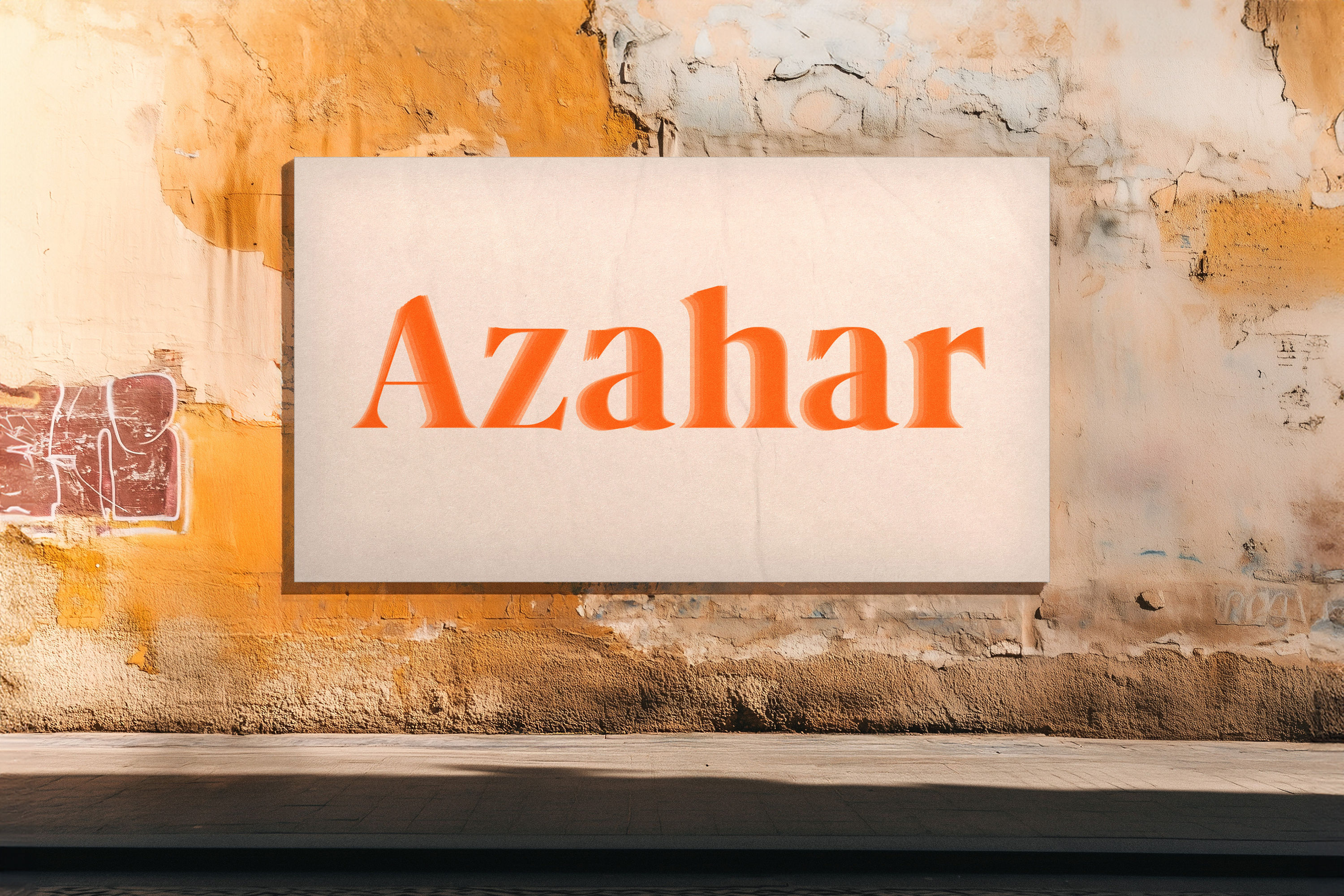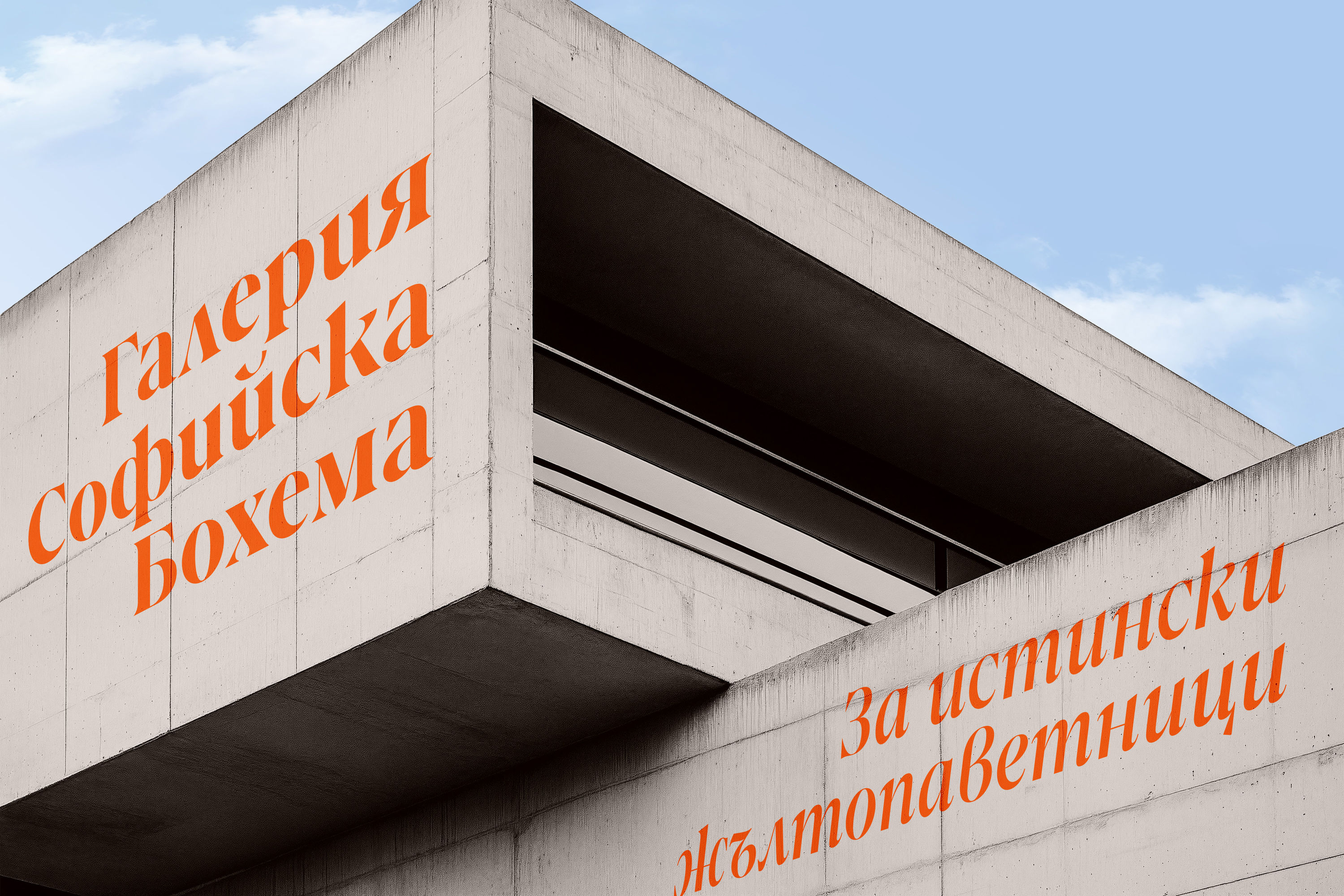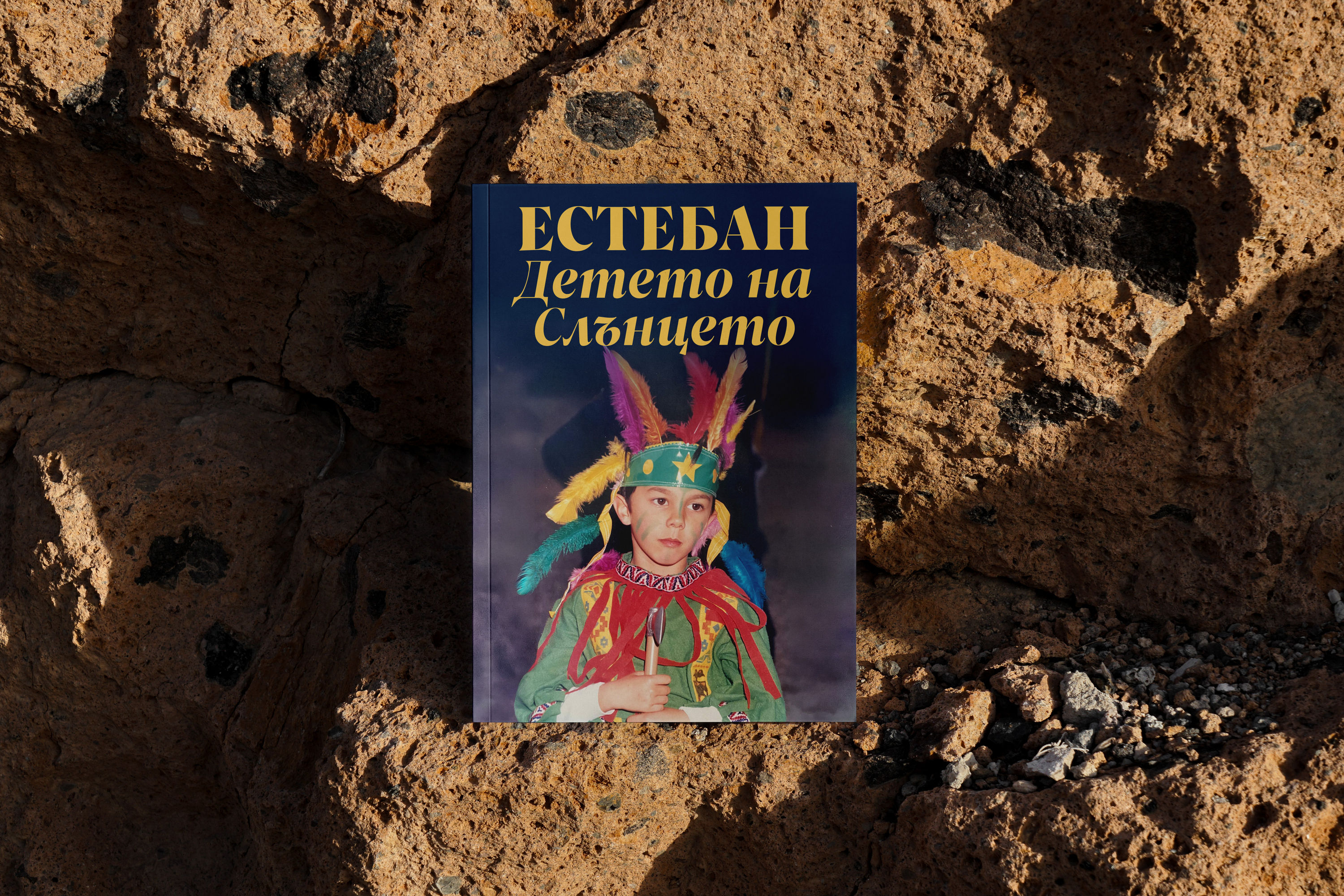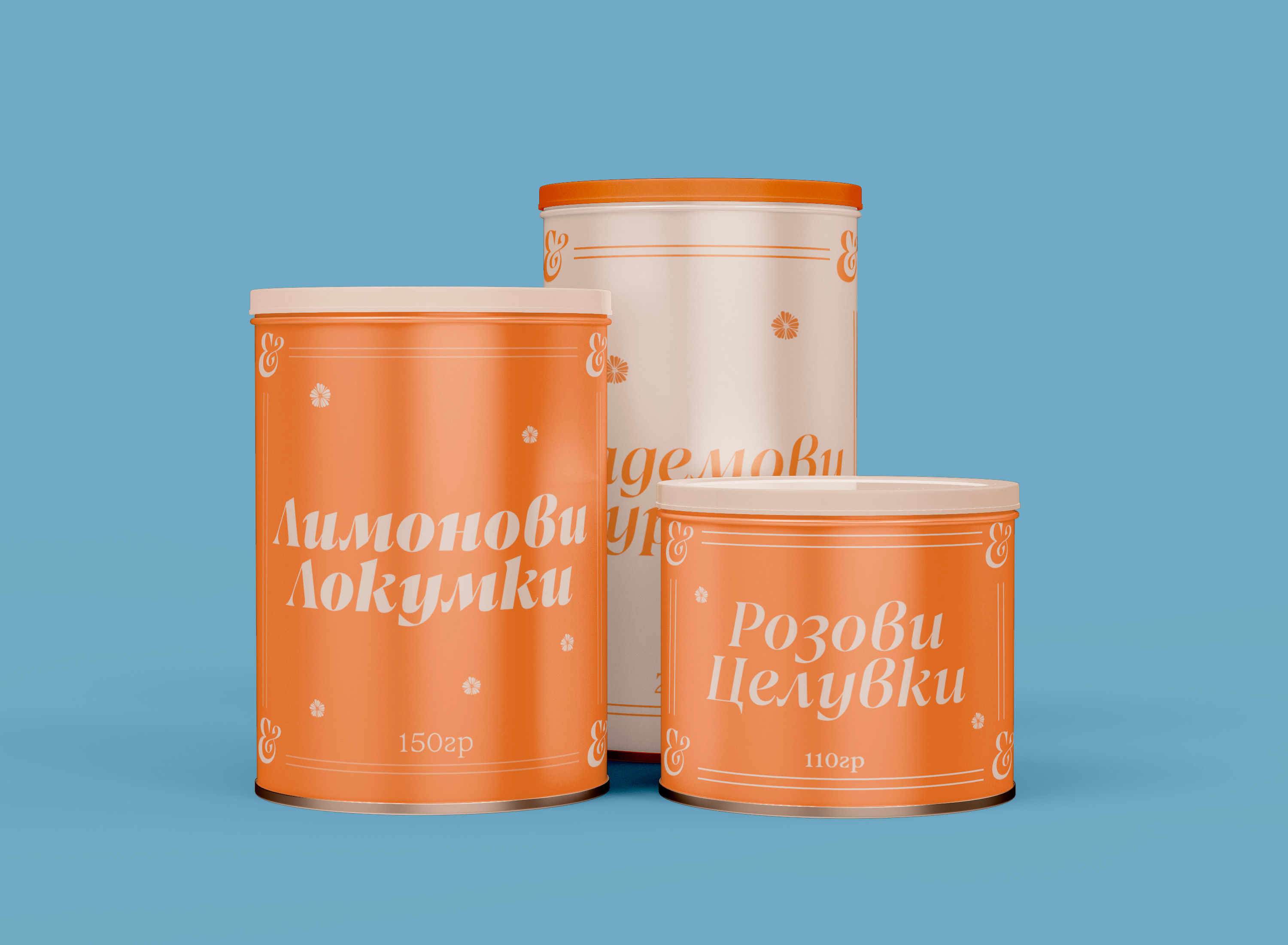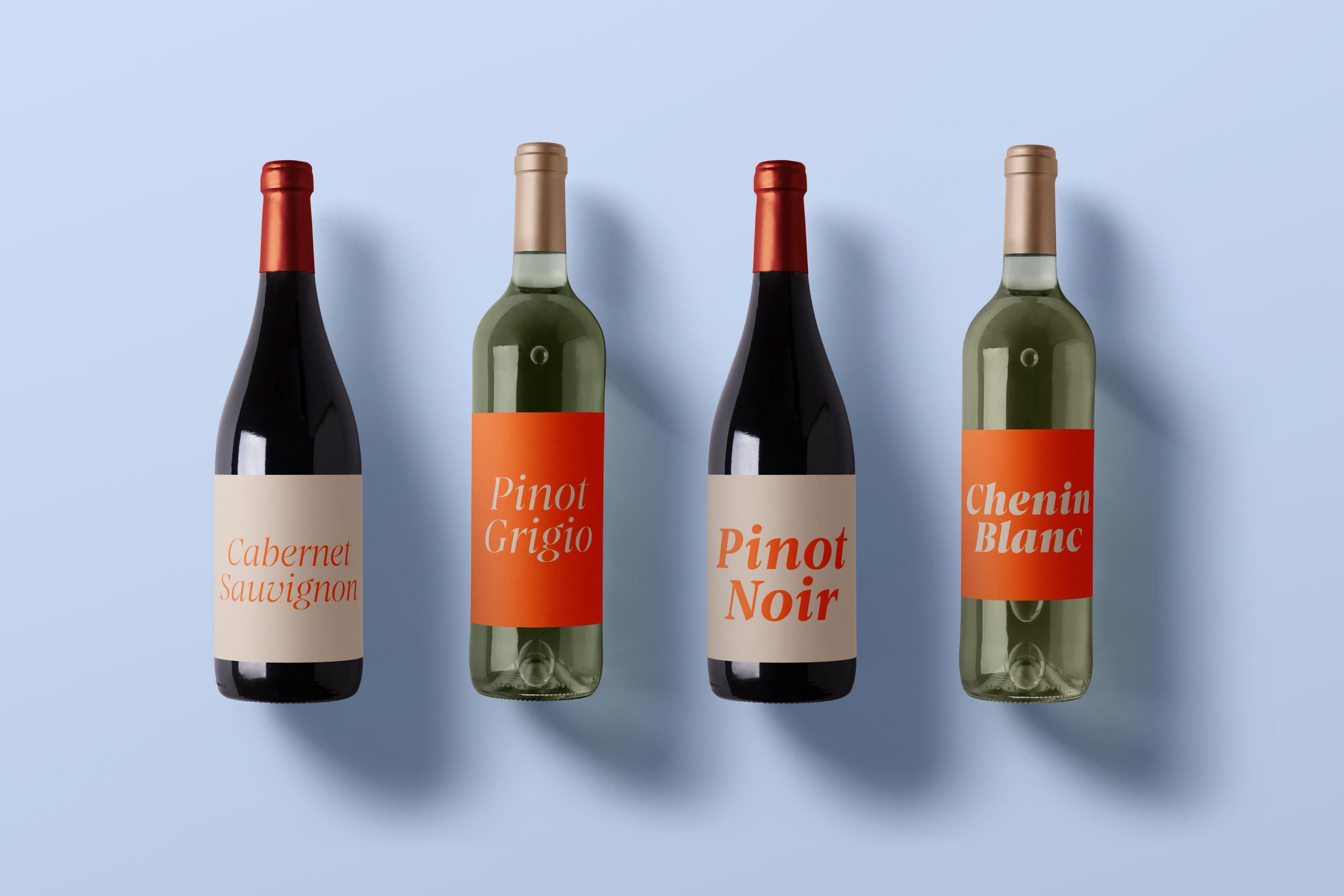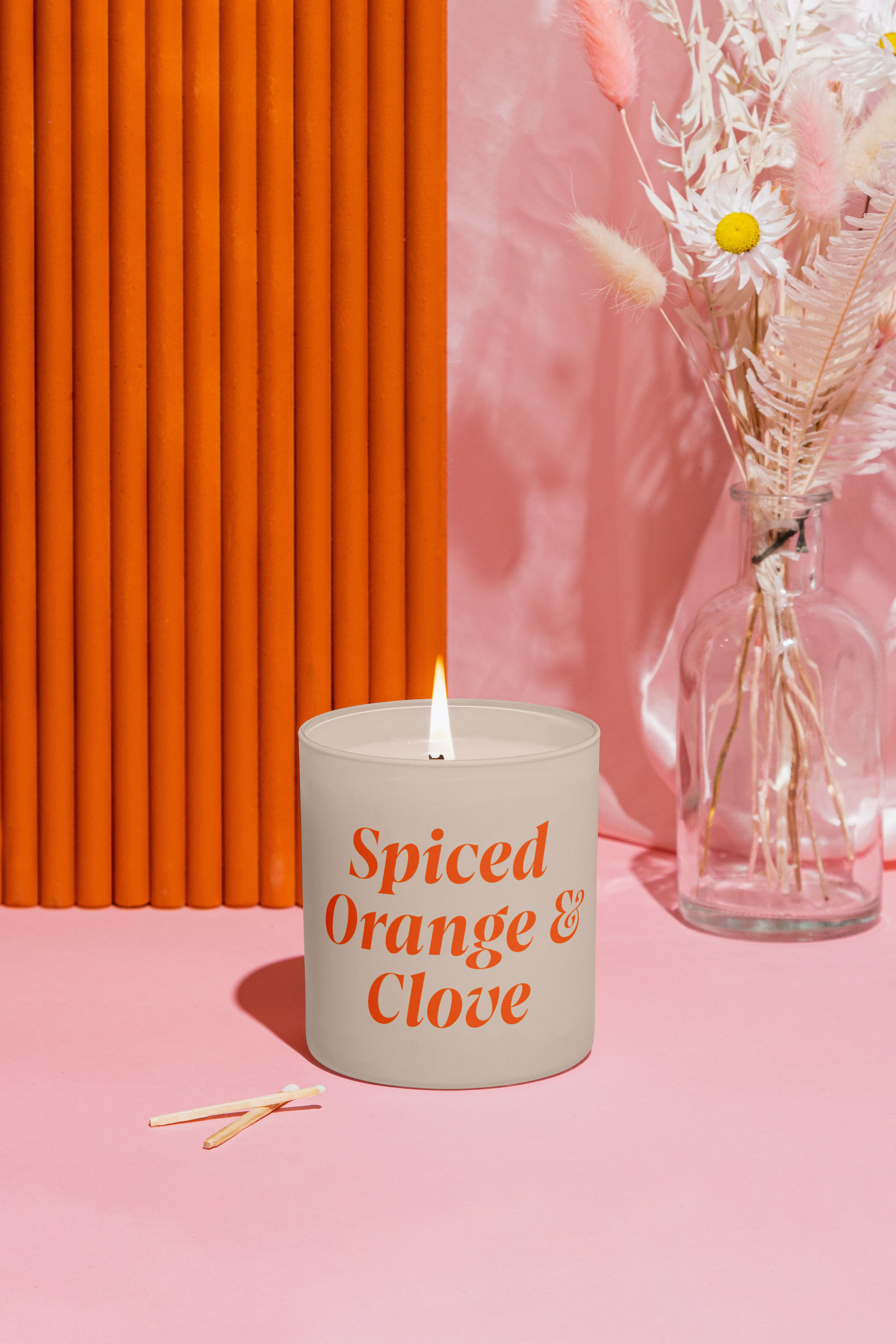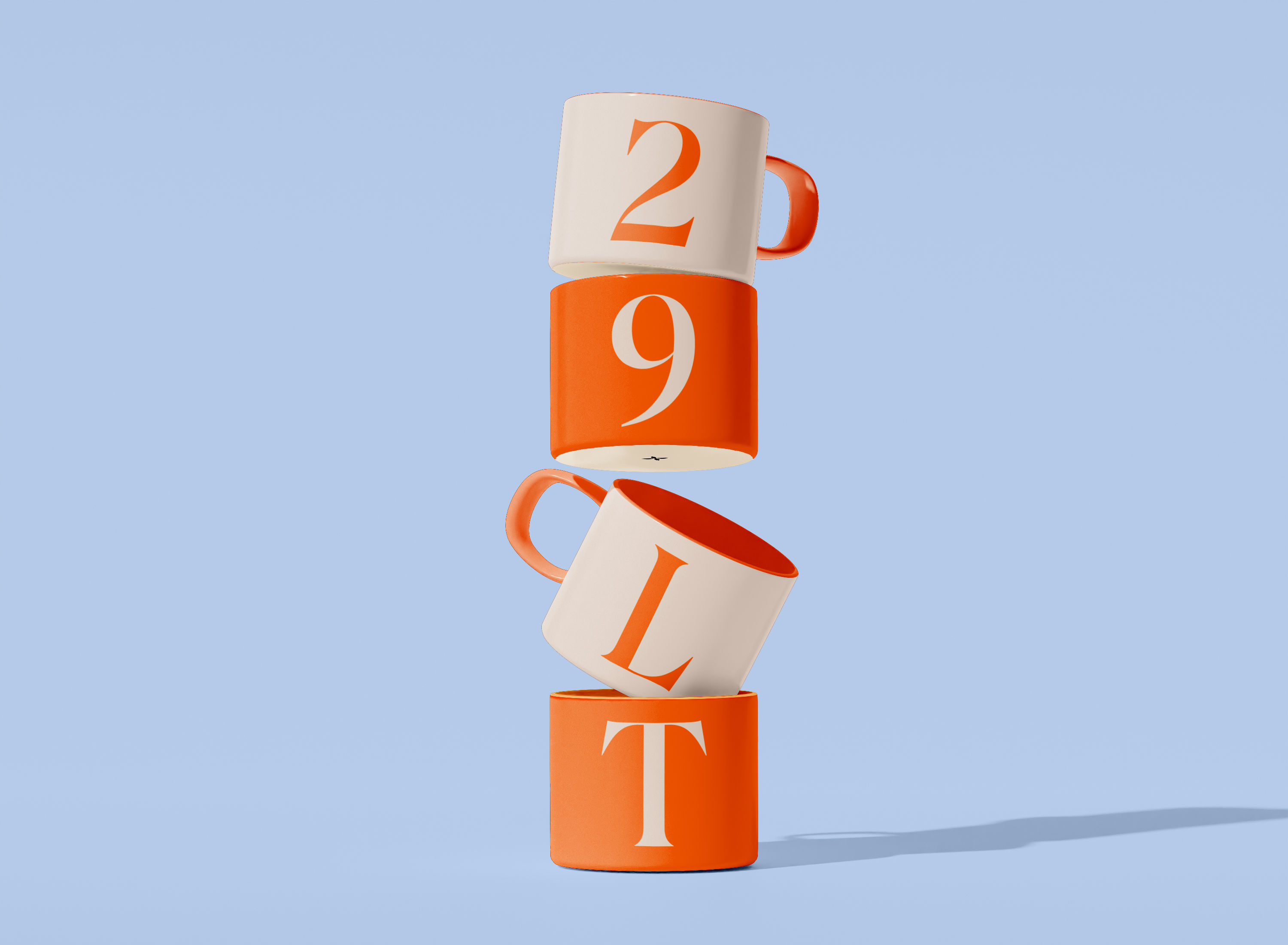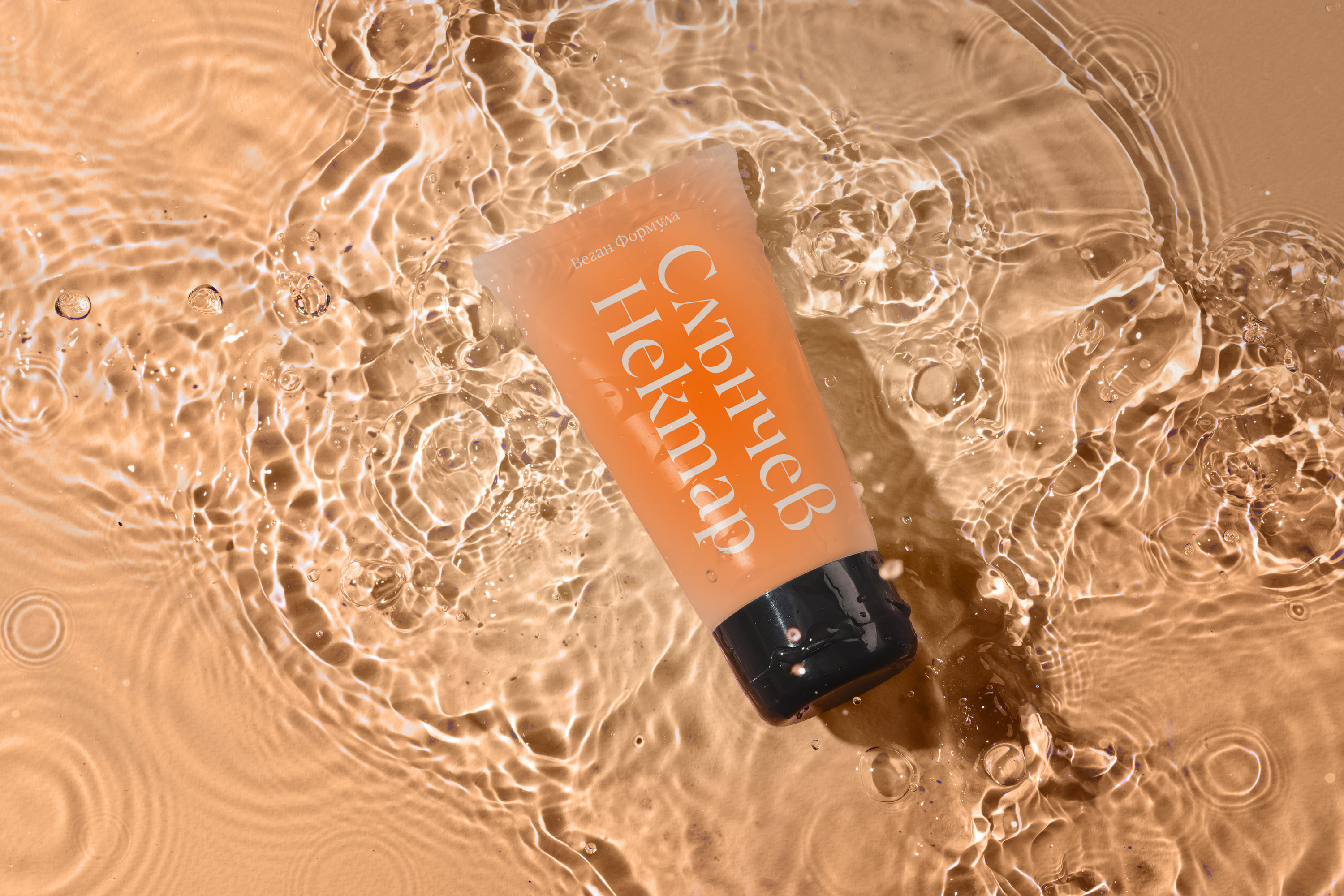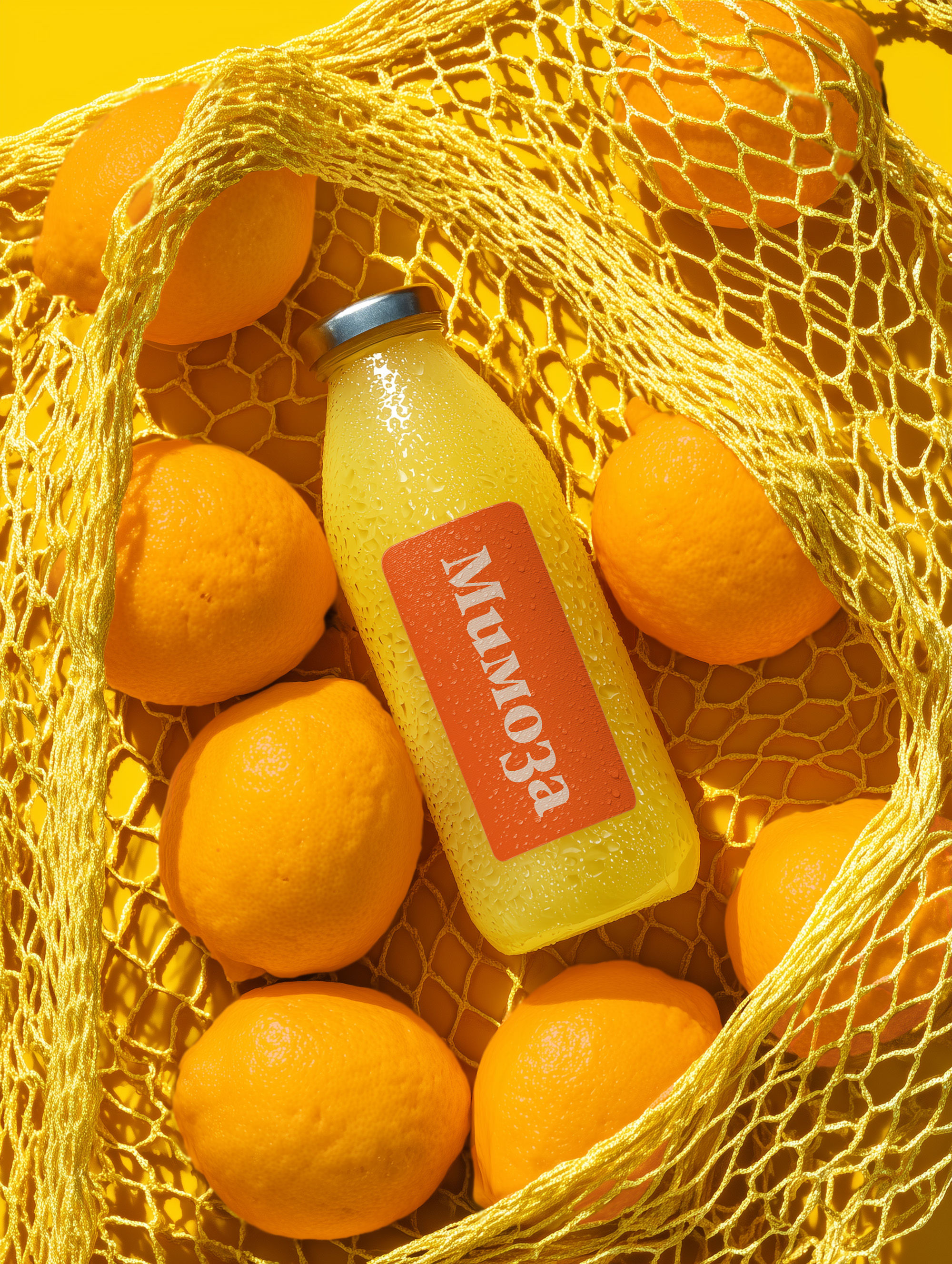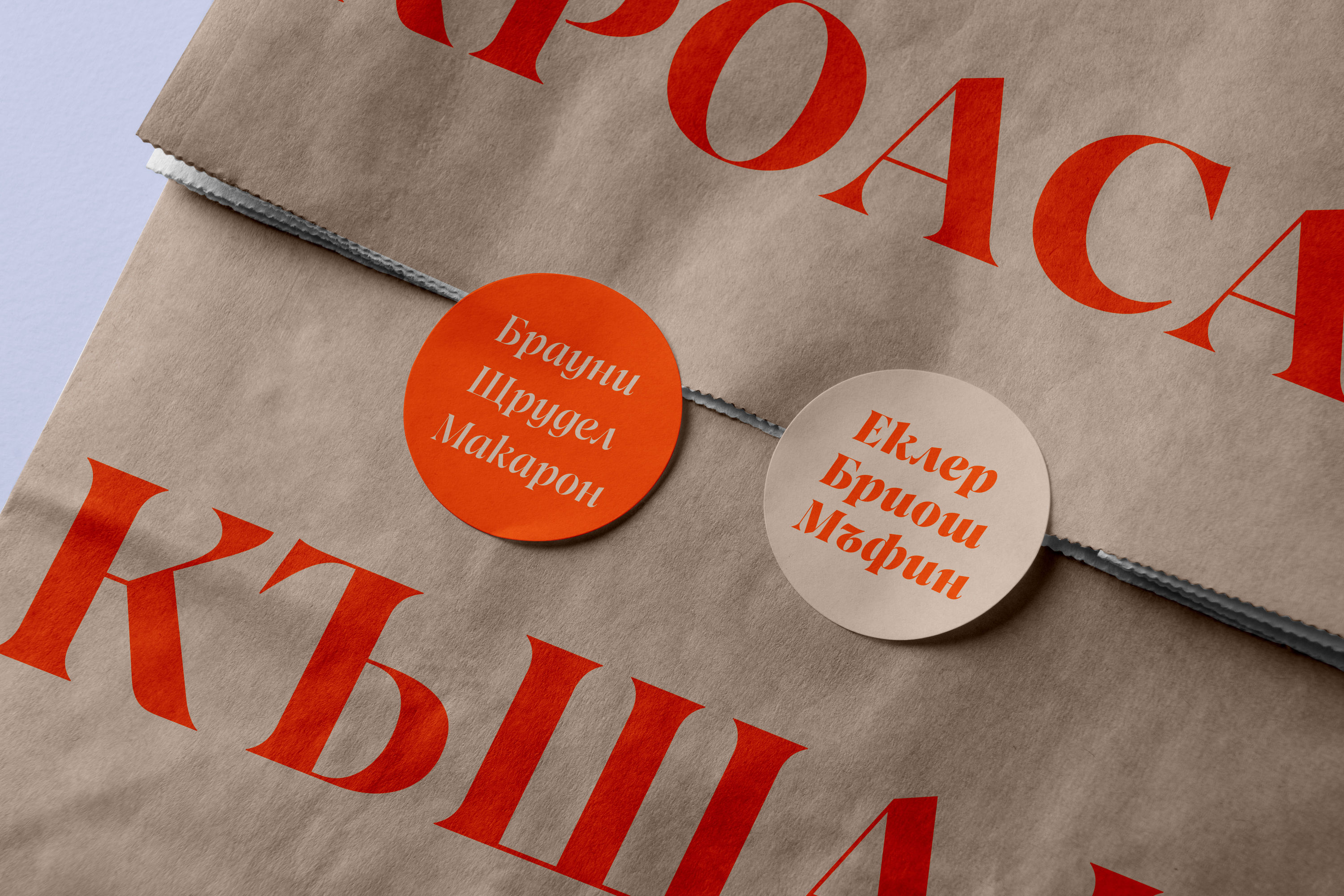
Azahar
Azahar is a refined serif typeface that brings together clarity and typographic contrast through its complementary Text and Display versions. Inspired by classical transitional letterforms, Azahar Text offers balanced proportions and moderate contrast, making it well suited for extended reading and complex editorial layouts. Azahar Display introduces sharper details, flared serifs, and higher contrast, lending the family a confident and expressive voice for headlines and visual statements. Named after the delicate orange tree blossom, Azahar is a versatile choice for editorial, cultural, and branding projects that value both sophistication and readability.
Axes
Weight, Optical Size
Azahar Text
Azahar Display
Stylistic Sets
Default Cyrillic
Serbian Cyrillic SS01
Default Cyrillic
Bulgarian Cyrillic SS02
Default ф
Cursive ф SS03
No Ligatures
Discretionary Ligatures DLIG